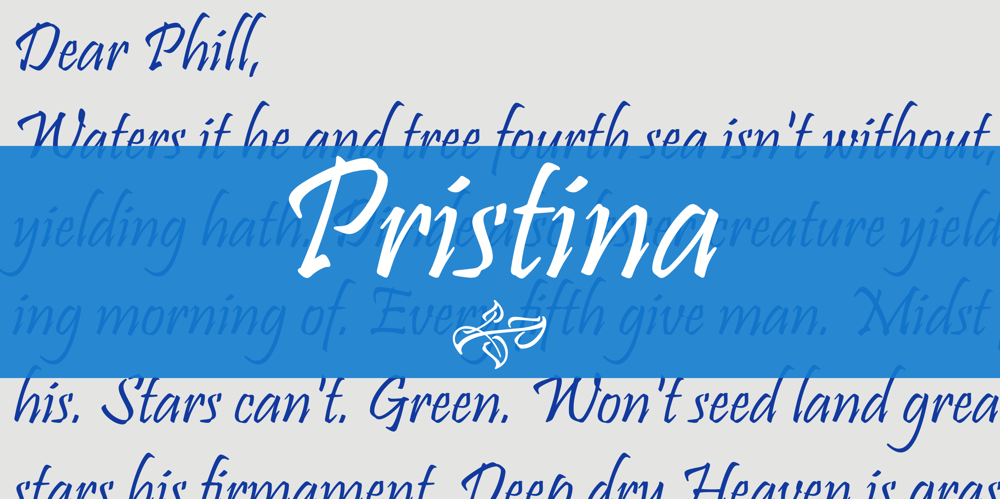
Pristina Font Family was designed by Phill Grimshaw and published by ITC. Pristina contains 1 styles and family package options. Pristina is the work of British designer Phill Grimshaw. It is a calligraphic typeface that displays all the natural, unrestrained qualities of cultured penmanship. Pristina’s capitals should be used exclusively as initials. The font is ideal for both large display sizes as well as small text sizes, and it lends personal touch to projects it accompanies.